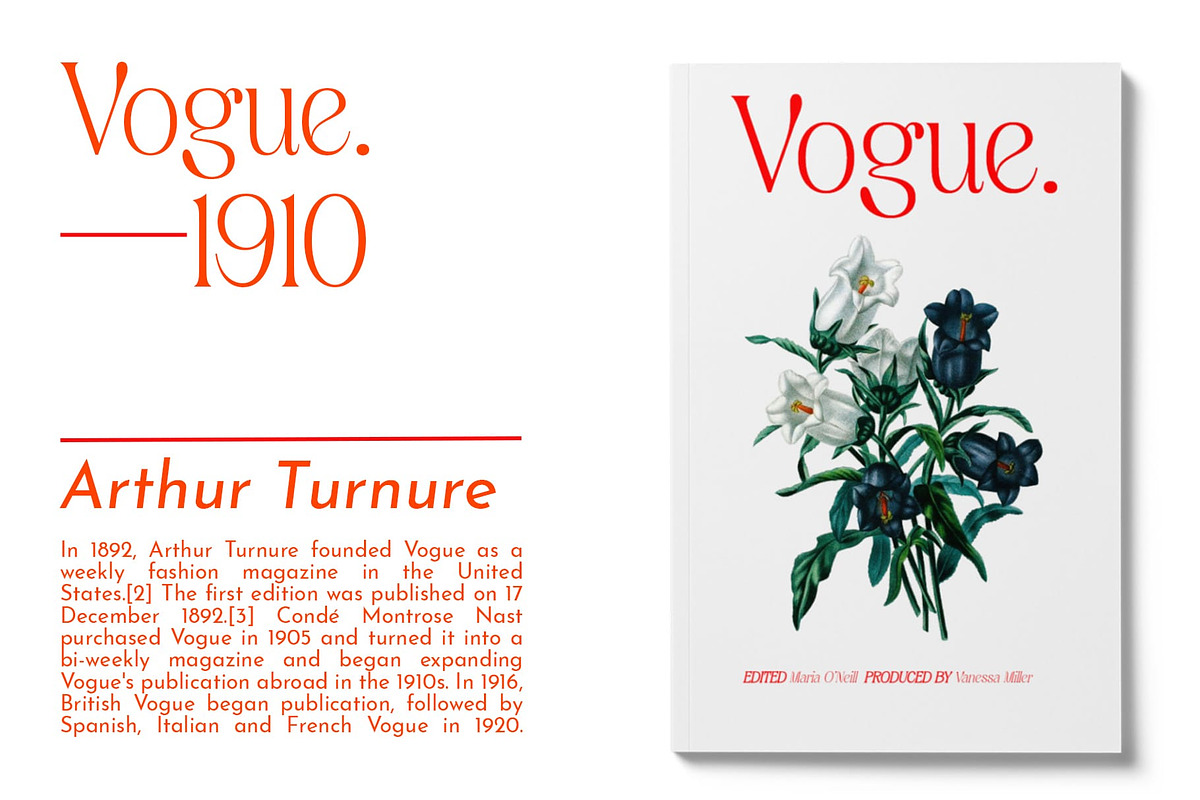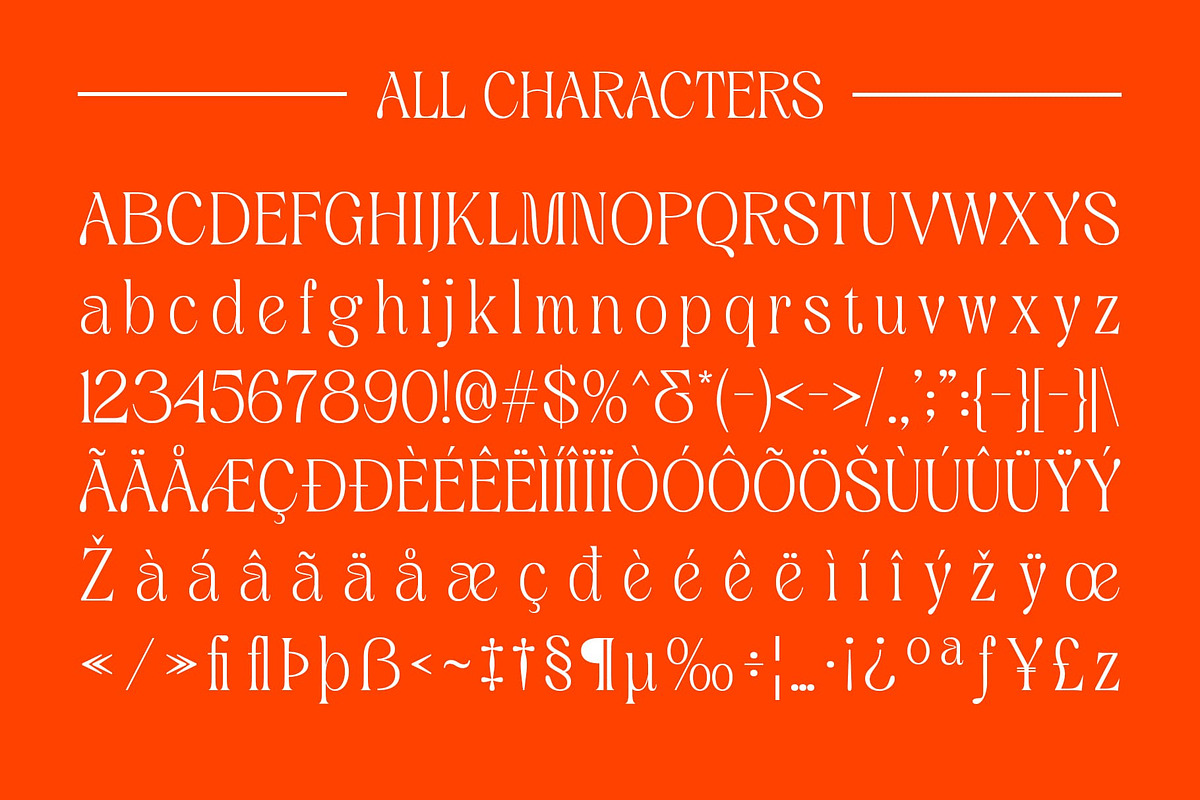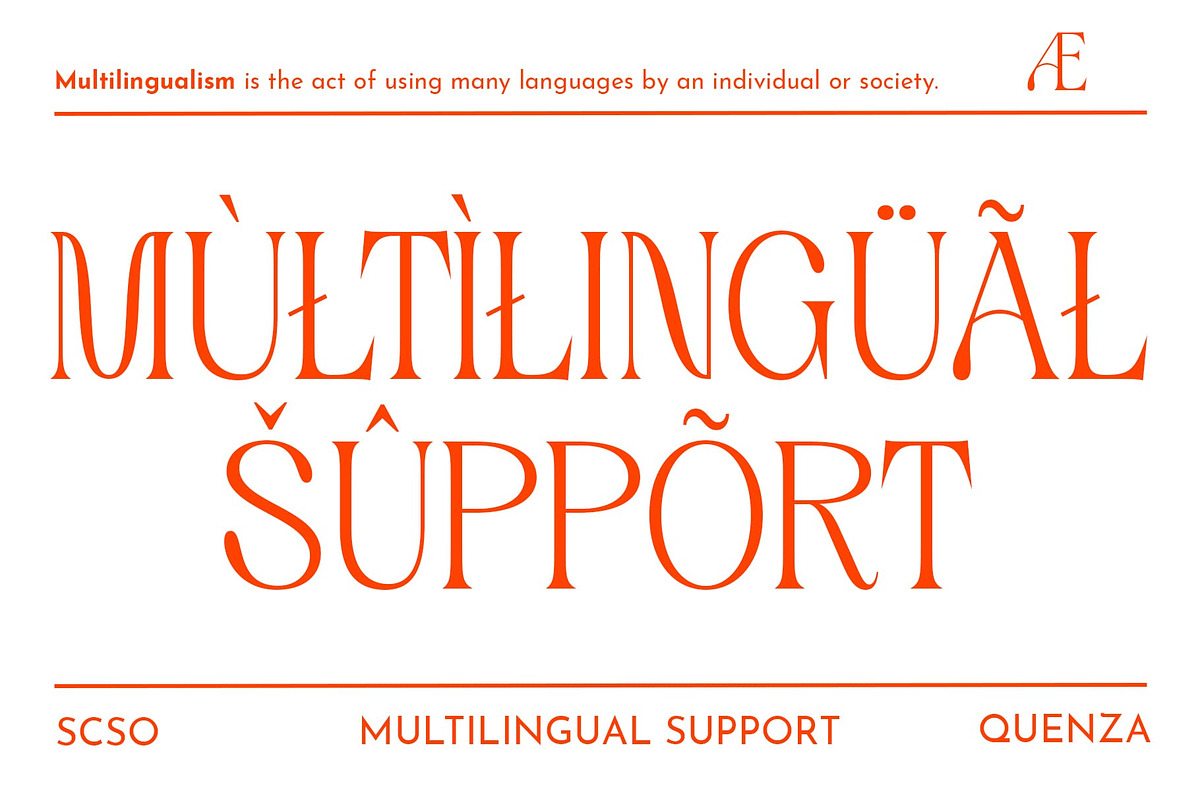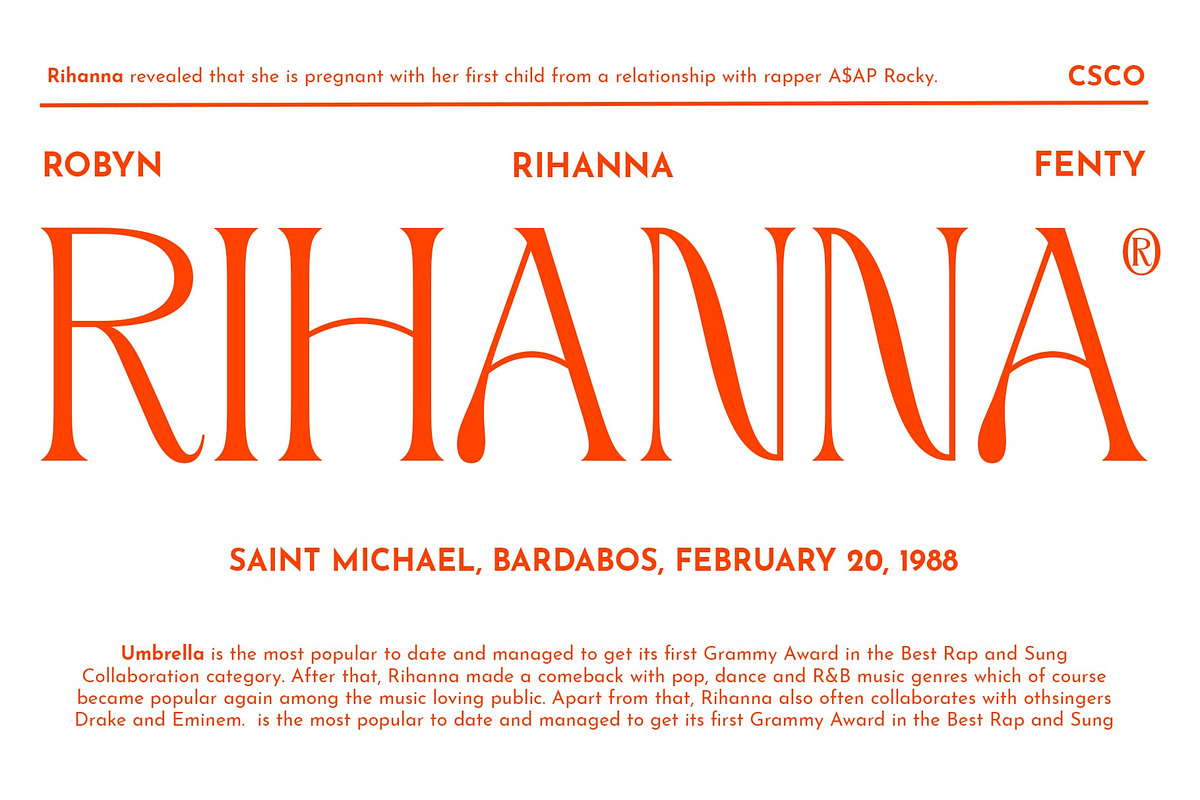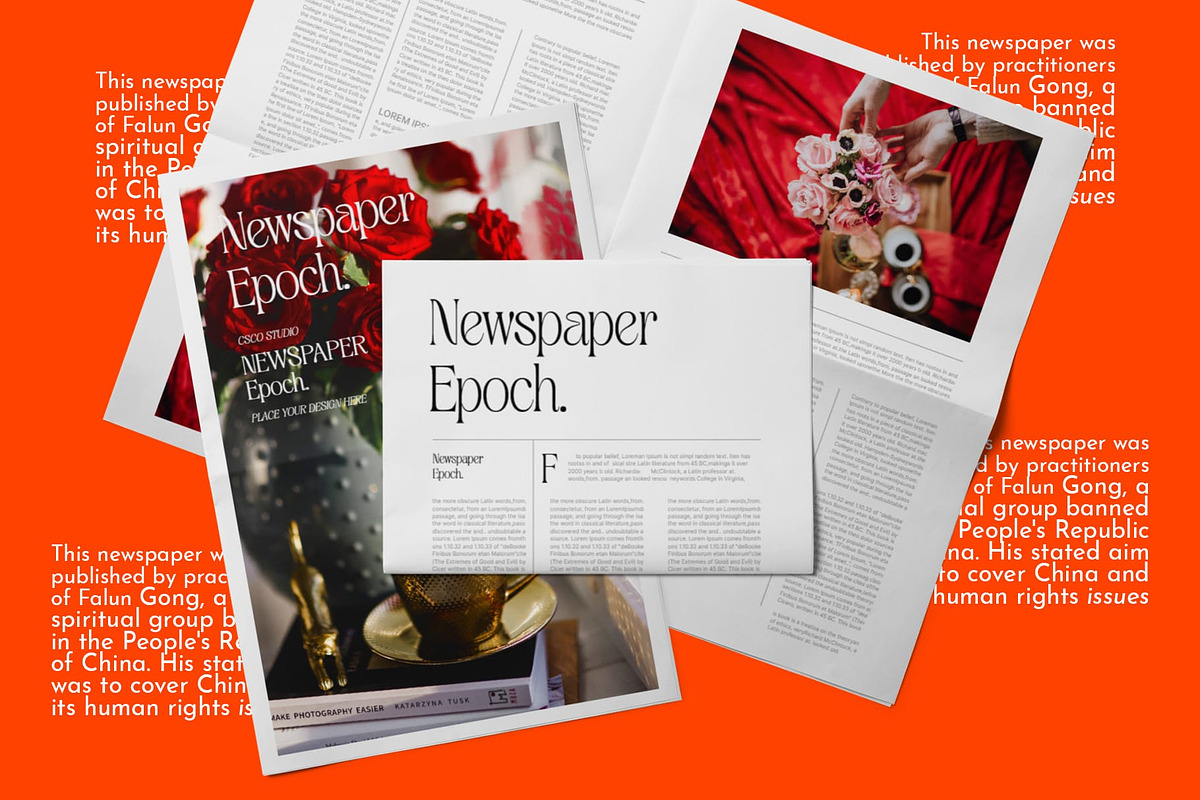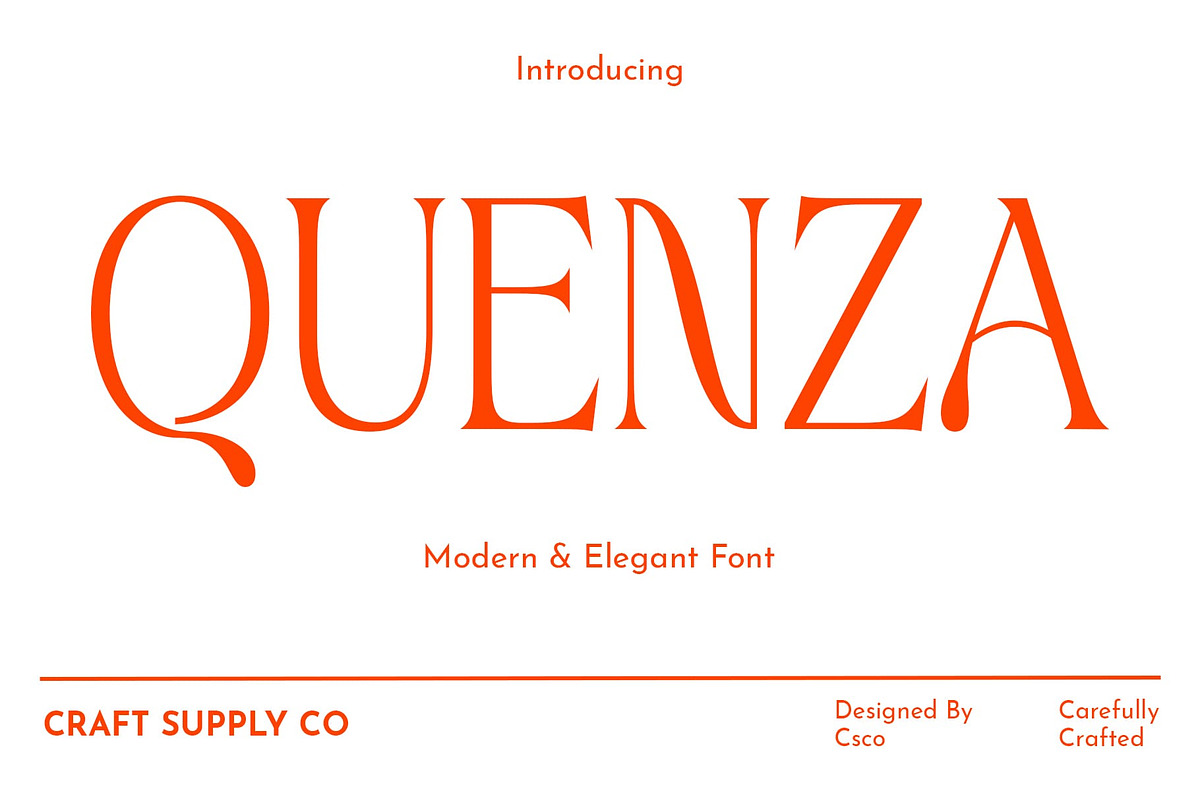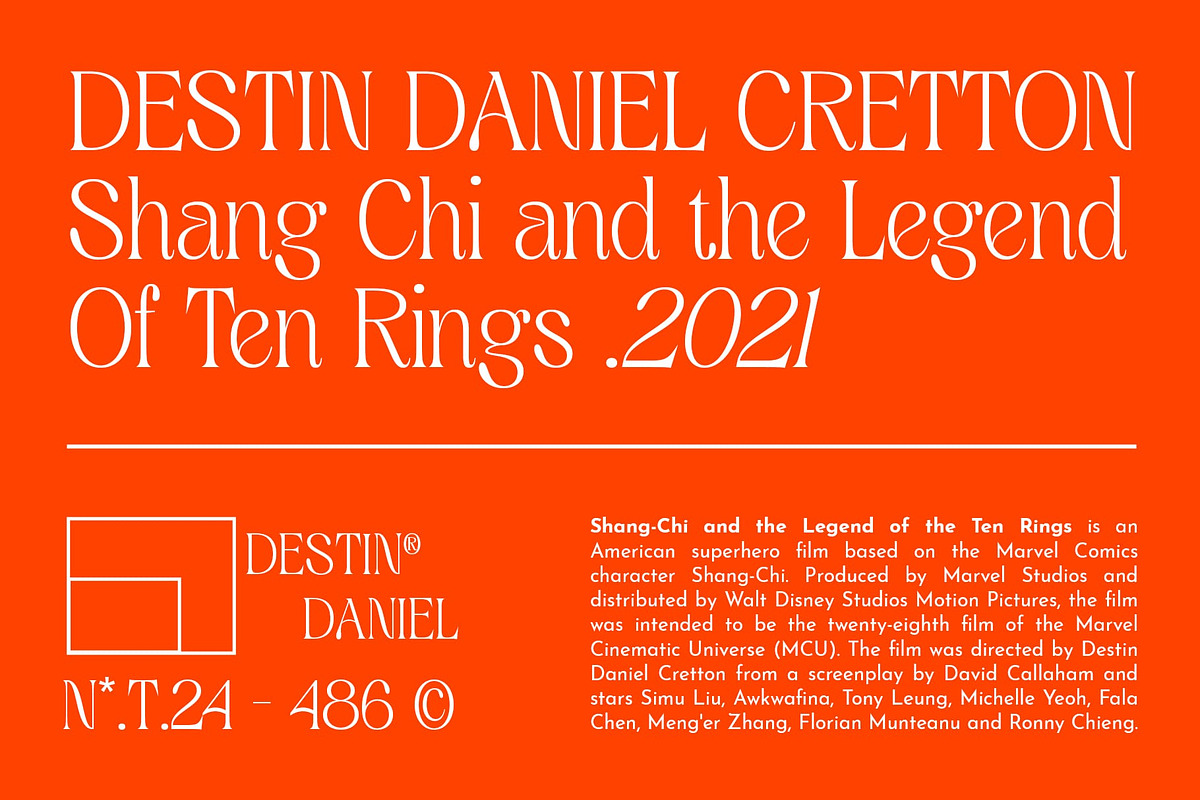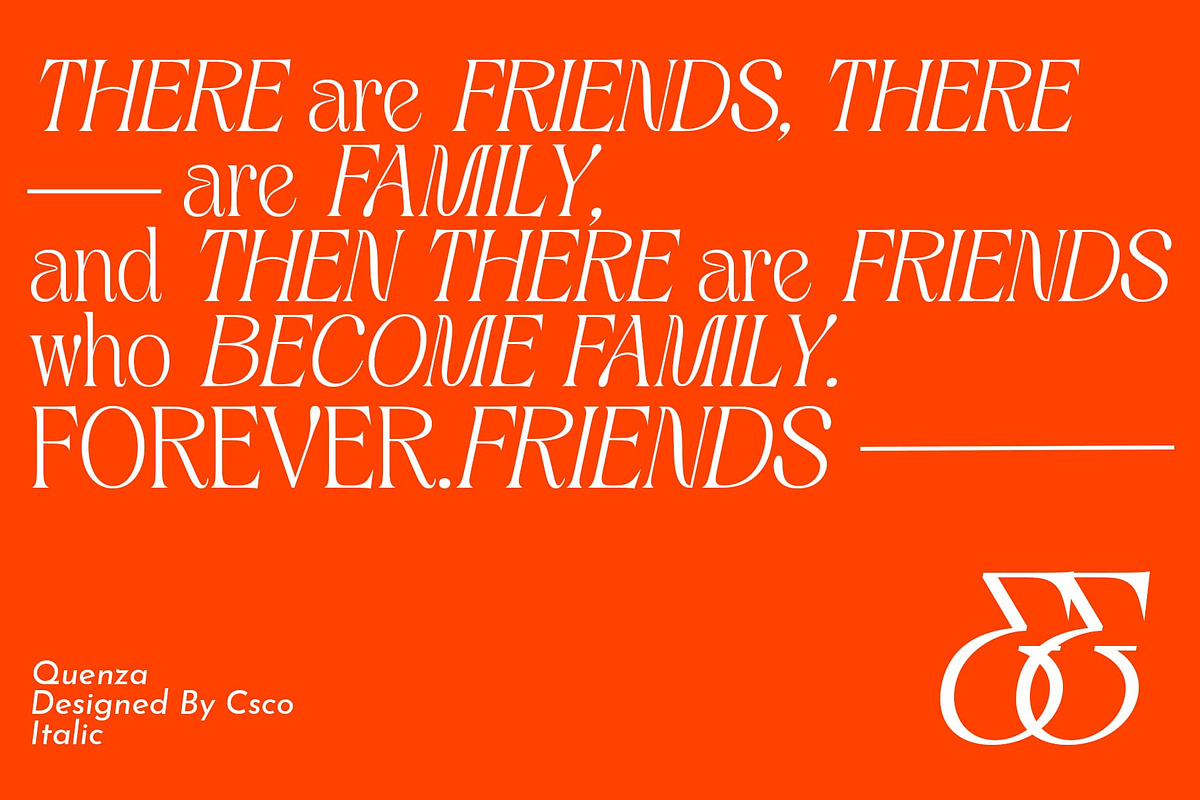
Quenza – Modern Serif
Quenza Font – Seamless Integration in Modern Design
Quenza, with its modern serif allure, seamlessly integrates into contemporary design landscapes. Its clean lines and balanced proportions make it an ideal choice for websites, branding materials, and digital platforms where elegance meets the demands of the modern aesthetic.
Effortless Elegance in Every Glyph Every glyph in Quenza is meticulously crafted to exude effortless elegance. The font’s nuanced details and precise strokes ensure that each character contributes to an overall aesthetic that is both contemporary and timeless.
A Modern Serif Masterpiece Quenza stands as a masterpiece in modern serif typography. It encapsulates the essence of modernity while preserving the timeless charm of serif fonts. This balance makes Quenza an invaluable asset for designers seeking to make a lasting impression.
Adaptable Elegance Across Mediums Quenza adapts its elegance seamlessly across various design mediums, from print to digital. Its versatility shines through, ensuring that your message is communicated with sophistication, whether in a sleek website interface, a printed editorial, or a corporate document.
Conclusion Quenza – not just a font, but an embodiment of modern sophistication. Elevate your designs, captivate your audience, and make a lasting impression with the timeless elegance of Quenza.